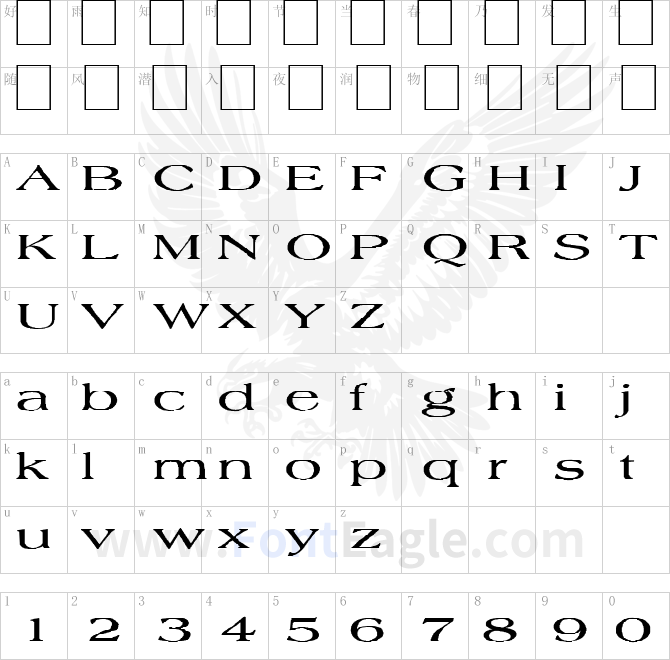
FZ-ROMAN-22-EX is a great font, widely used in graphic design, single-page menu design, poster design and other fields, and is deeply loved by designers.FZ-ROMAN-22-EX download.